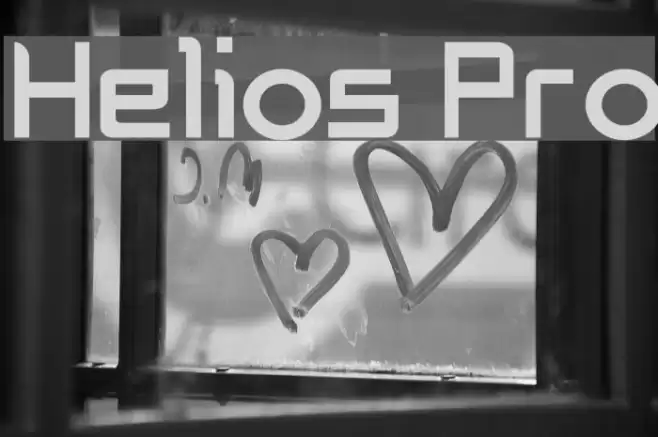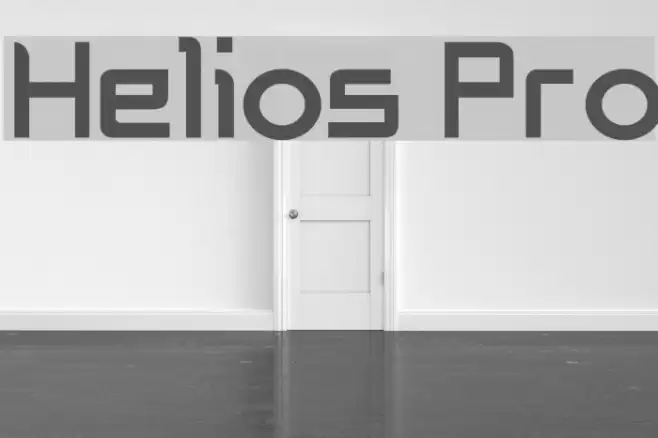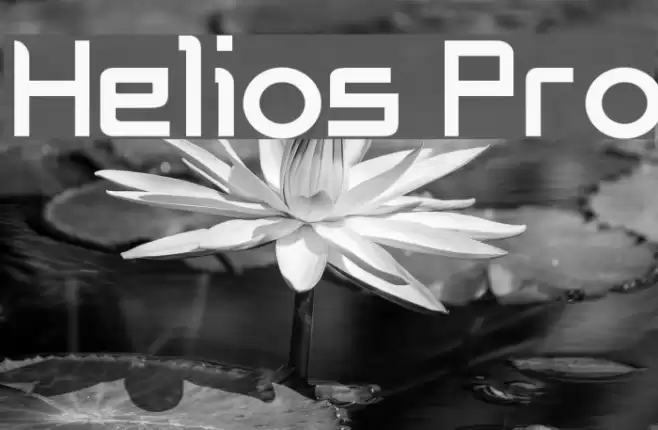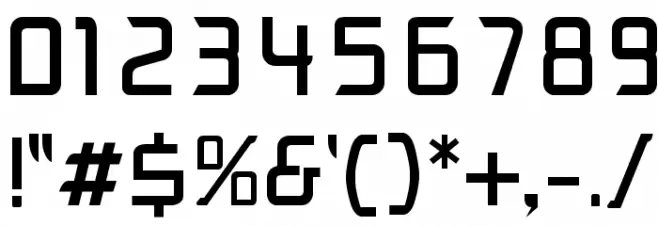
Helios Pro Font
Helios Pro Description
This font features a modern and geometric design with clean lines and a structured appearance. The uppercase letters are bold and angular, giving a strong and assertive look. The lowercase letters maintain a consistent style, with rounded edges that soften the overall feel. The numerals are distinct and easy to read, with a uniform height that aligns well with the letters. Special characters are designed to match the font's geometric theme, ensuring a cohesive appearance across all text. The font's balance between sharp angles and smooth curves makes it versatile for various design applications.
A modern, geometric font with clean lines and a structured appearance from Uncategorized fonts.
- Proposed Projects: Ideal for branding, advertising, and digital interfaces where a modern and clean aesthetic is desired.
- Use Case: Headlines, Logos, Digital Interfaces